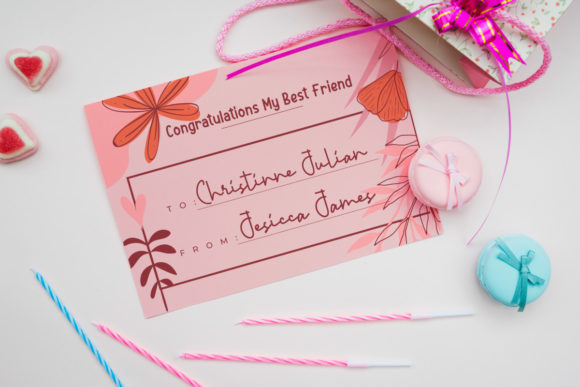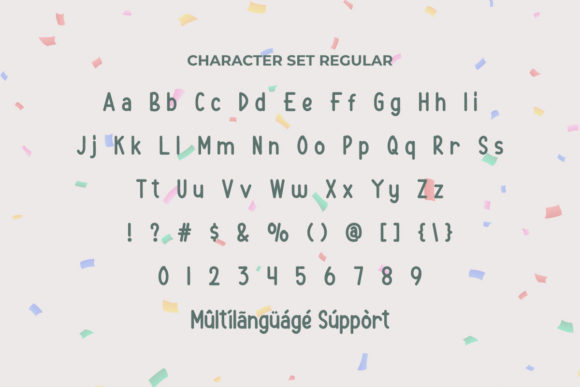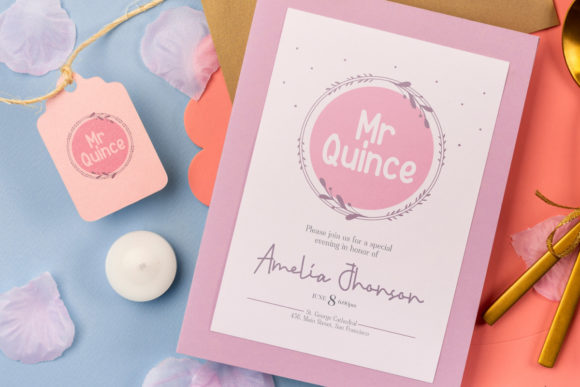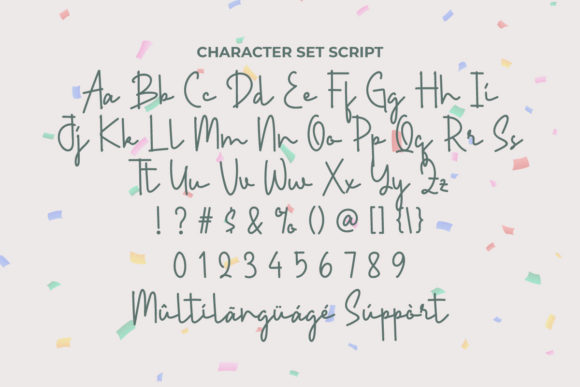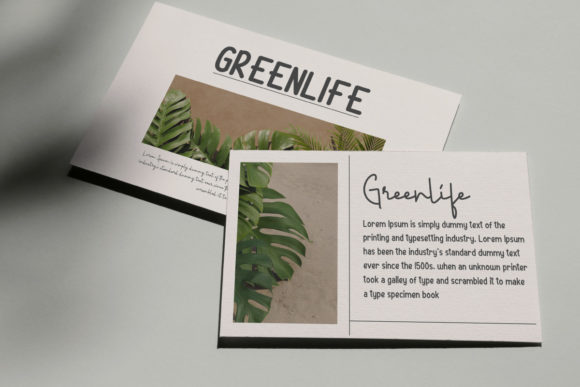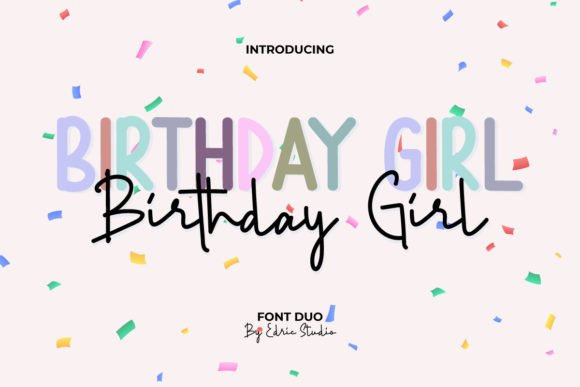
Get Ready to Celebrate with Birthday Girl Font
Do you ever find yourself stuck in a creative rut, staring at a blank page or screen, desperately searching for the perfect font to bring your design to life? It’s a feeling we’ve all been there, and it’s exactly why we’re so excited to share the Birthday Girl Font with you.
This fun and cheerful duo font is the perfect solution for designers looking to add a touch of whimsy to their projects. With its PUA encoding, you’ll have access to a wide range of glyphs and swashes, allowing you to create unique and eye-catching designs with ease. Whether you’re working on a casual event project or a more formal affair, the Birthday Girl Font is the perfect addition to your design arsenal.
So why is the Birthday Girl Font so valuable to designers? It’s simple: with its versatility and ease of use, it’s the perfect tool for bringing your creative vision to life. And with its PUA encoding, you can rest assured that you’ll have access to all the features you need to create truly unforgettable designs.
Birthday Girl Font Key Features
- Unique Characteristics: The Birthday Girl Font features a whimsical, handwritten design with decorative flourishes, making it ideal for adding a touch of elegance to birthday invitations, cards, and other celebratory materials.
Designer Review: Birthday Girl Font
Overall, I think the Birthday Girl Font has a lot of potential, but like any font, it’s not without its limitations. Here’s my honest review.
✨ I love the playful, cursive feel of this font. It’s perfect for creating a whimsical and celebratory atmosphere, making it ideal for birthday invitations, party decorations, and other festive designs.
- ✨ The font’s varying line weights add depth and visual interest to text.
- ✨ The letterforms are well-designed and easy to read, even at smaller font sizes.
- ✨ The font’s quirky charm makes it stand out from more generic, serif fonts.
⚠️ One of the main drawbacks of this font is its limited character set. It’s not suitable for text-heavy designs or body copy, as it can become tedious to read.
- ⚠️ The font’s aesthetic is quite bold and attention-grabbing, which may not be suitable for all designs.
- ⚠️ The font’s cursive nature can make it difficult to use for headings or titles that require a strong, clear font.
The Birthday Girl Font is a fun and creative choice for designs that require a playful, celebratory feel. While it may not be the best choice for all designs, it’s definitely worth considering for projects that need a touch of whimsy.
Birthday Girl Font is ideal for:
- Birthday cards and invitations
- Party decorations and signage
- Birthday-themed social media graphics
- Party favors and gifts